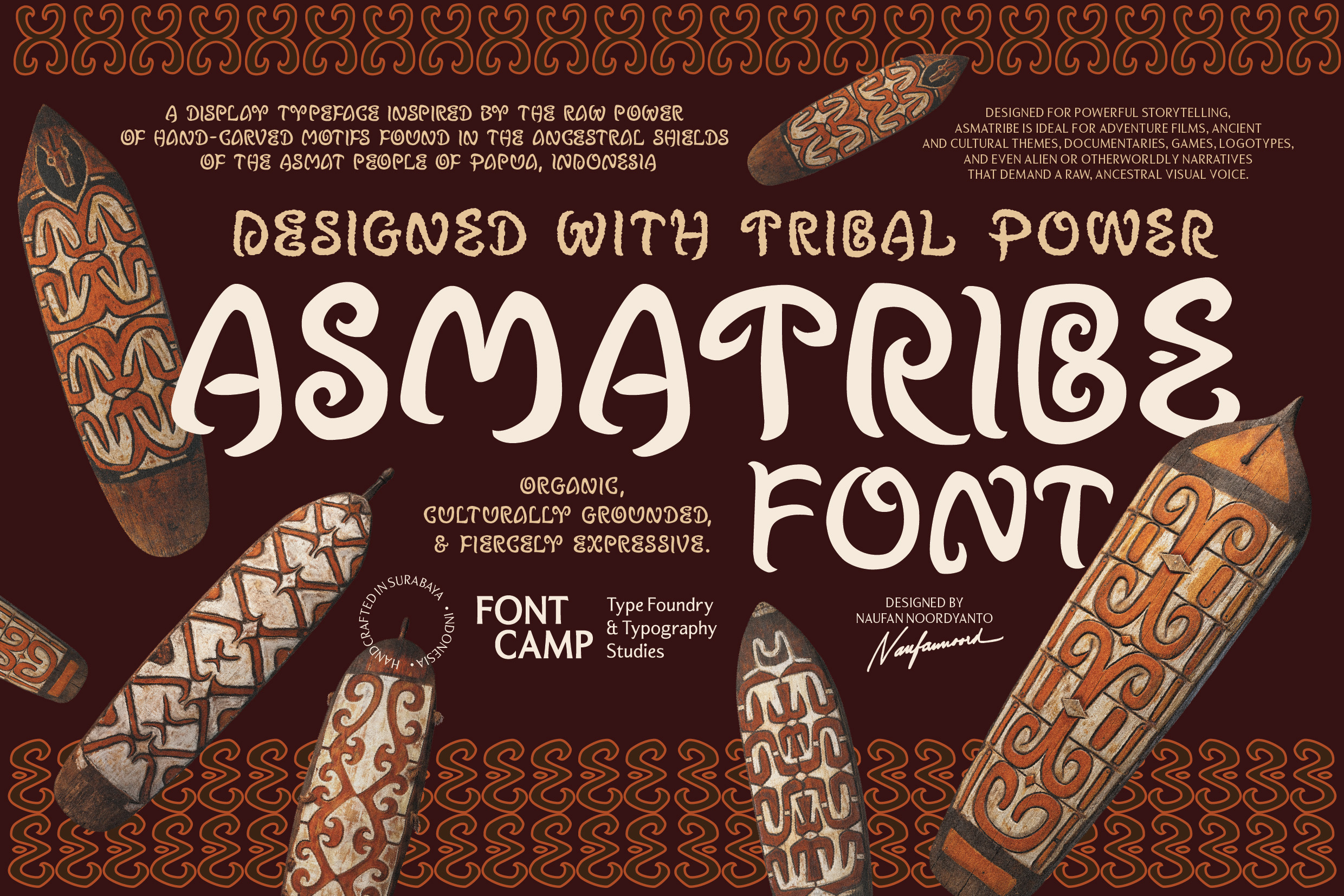
Asmatribe Font
Introducing an "ASMATRIBE" Font.
Organic, ancestral, and fiercely expressive.
“Asmatribe” is a display typeface deeply rooted in the ancestral woodcarving traditions of the Asmat people of Papua, Indonesia. The name is a fusion of "Asmat" and "Tribe," honoring the cultural identity of the region. Every character is meticulously crafted to reflect the bold, organic motifs found on traditional Asmat shields. By embracing hand-wrought imperfections and rugged, distinctive lines, Asmatribe brings an authentic, artistic, and raw ethnic energy to your designs. It is the perfect choice for projects seeking a powerful cultural narrative and a handmade touch.
Designed for powerful storytelling, Asmatribe is ideal for adventure films, ancient and cultural themes, documentaries, games, tribal logotypes, and even alien or otherworldly narratives that demand a raw, ancestral visual voice.
Type. Repeat. Transform: Rooted in ancestral motifs, Asmatribe extends beyond letters—its repetition create bold typographic patterns.
Font Name: Asmatribe (Regular & Rough Regular);
Style: Regular (clean stroke version) and Rough Regular (a regular font with a rough stroke);